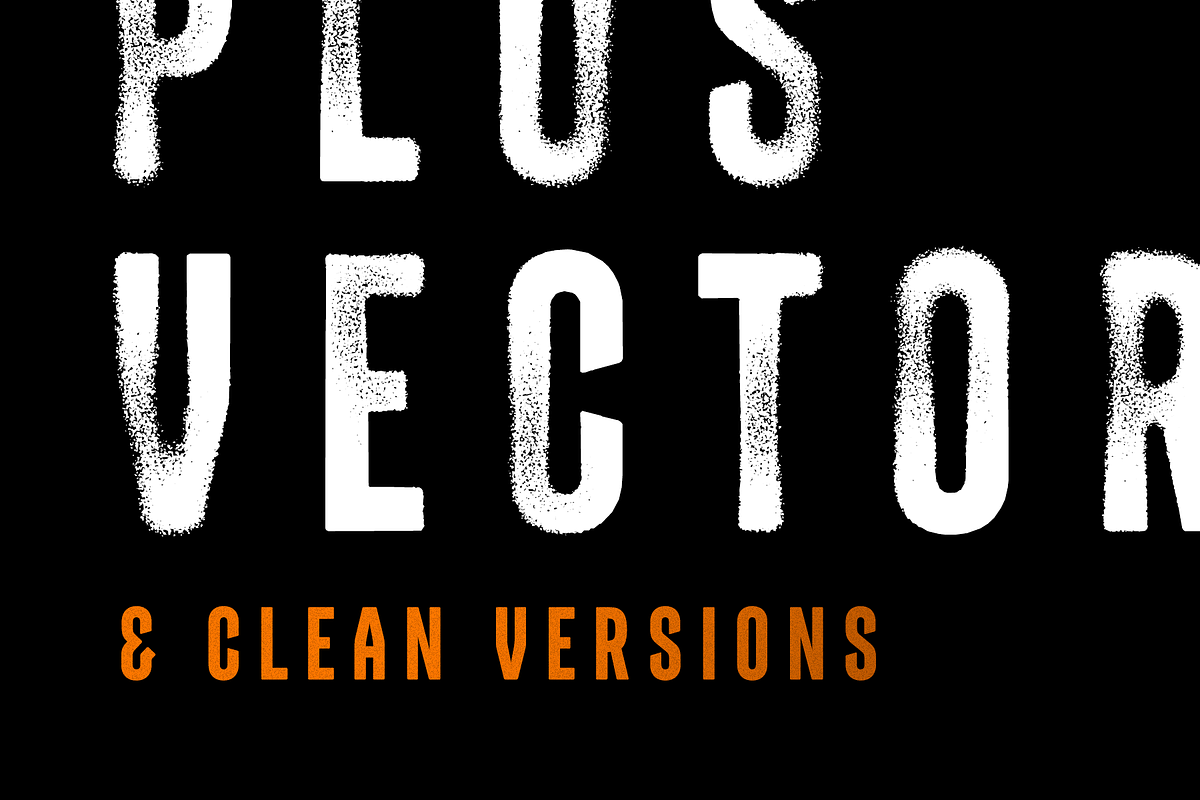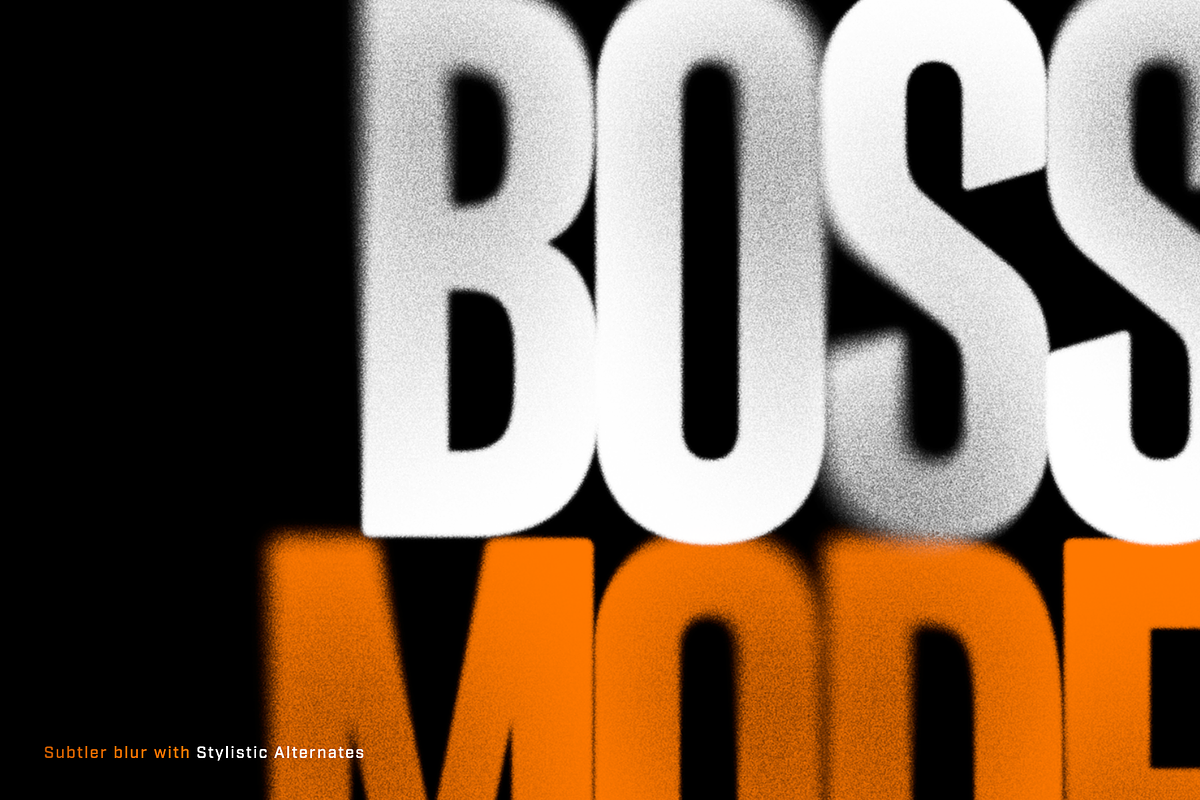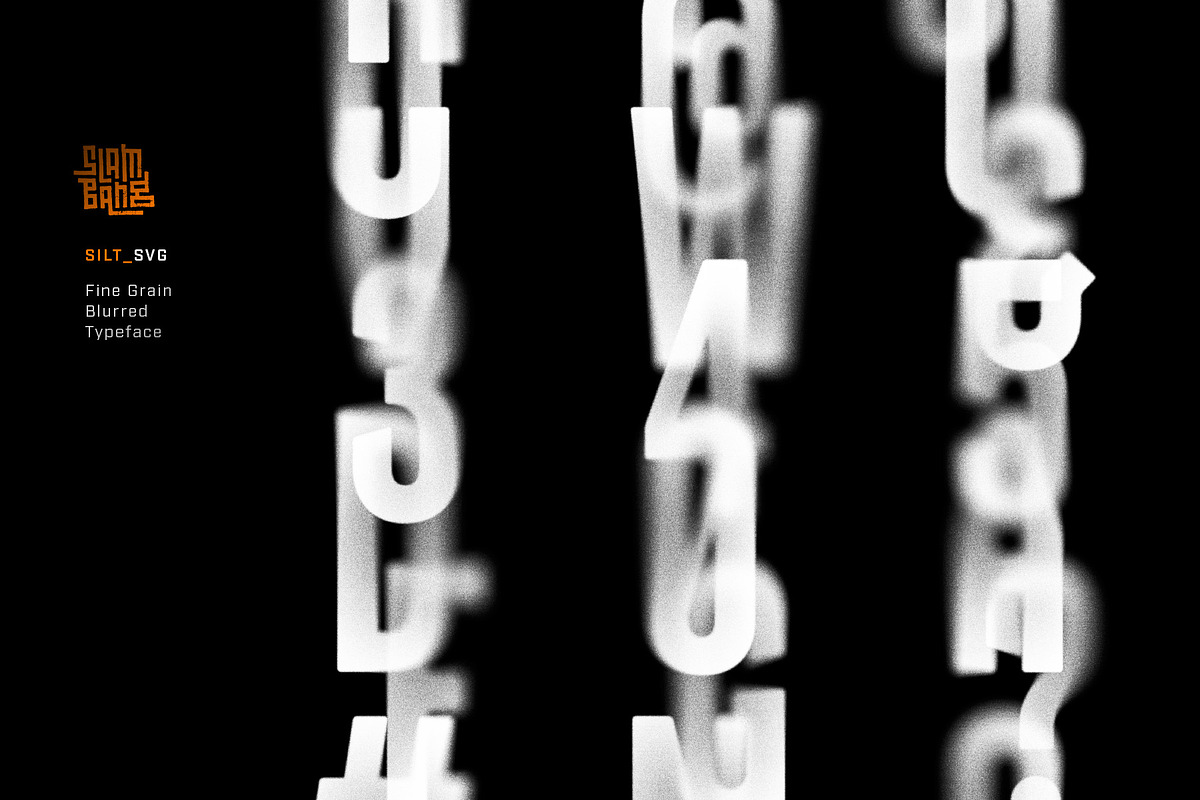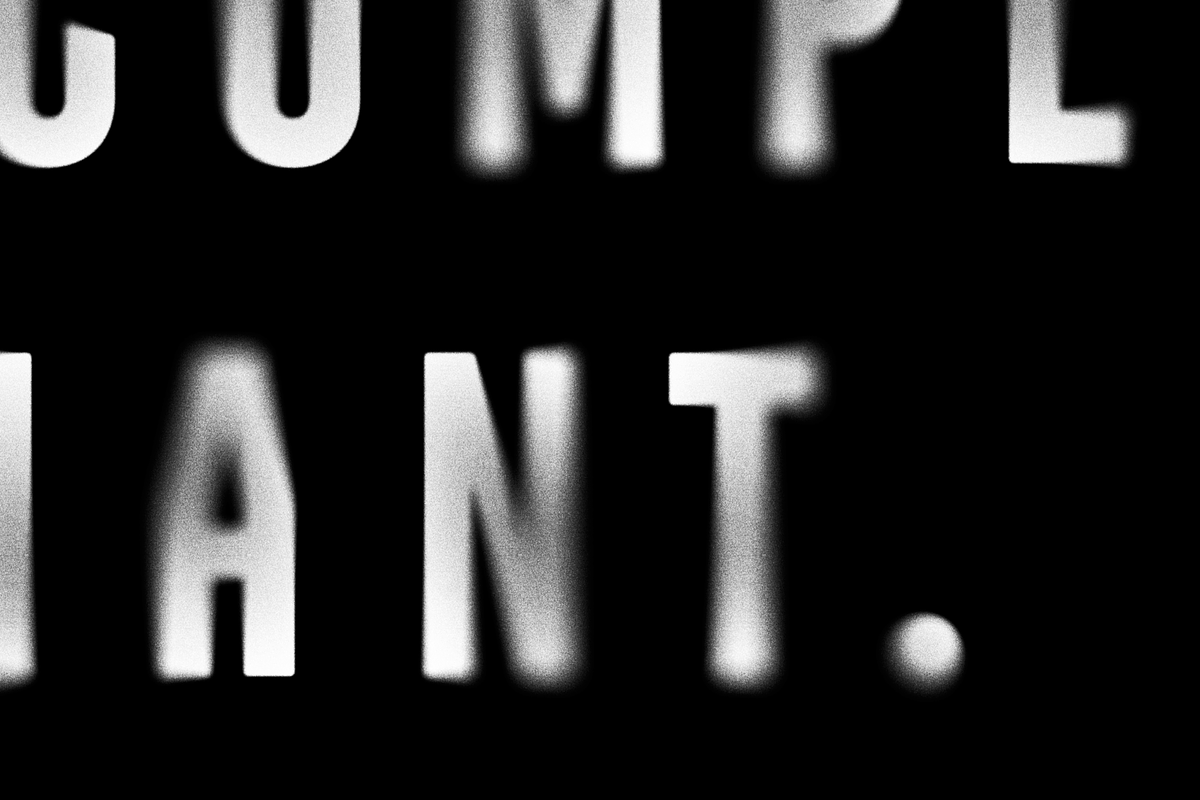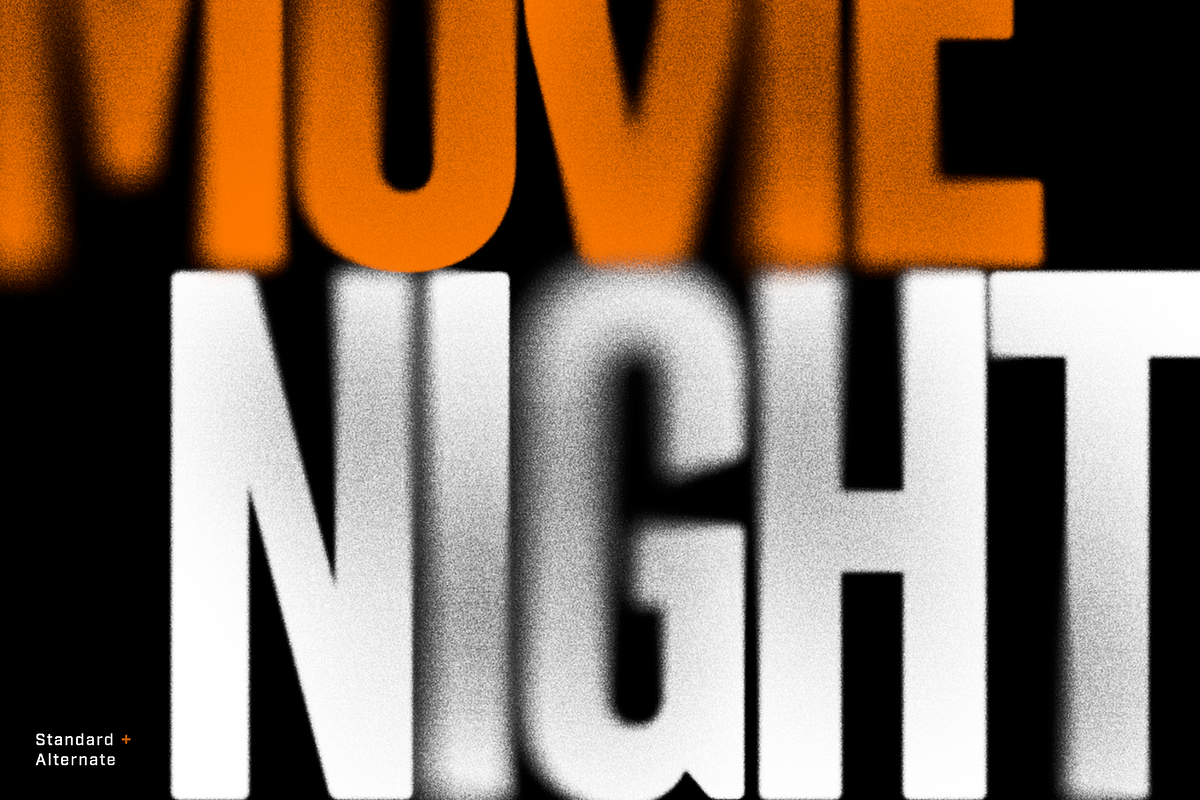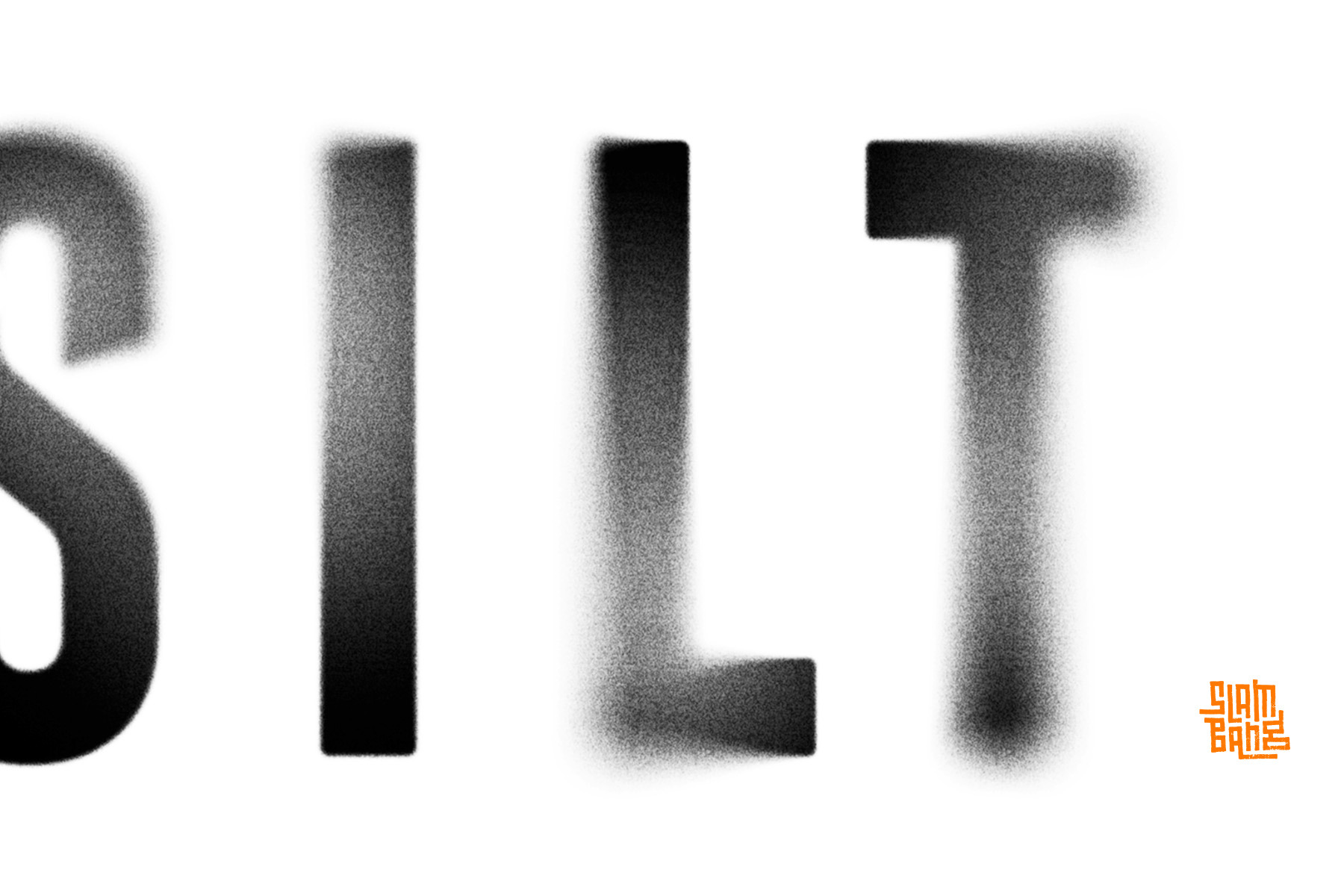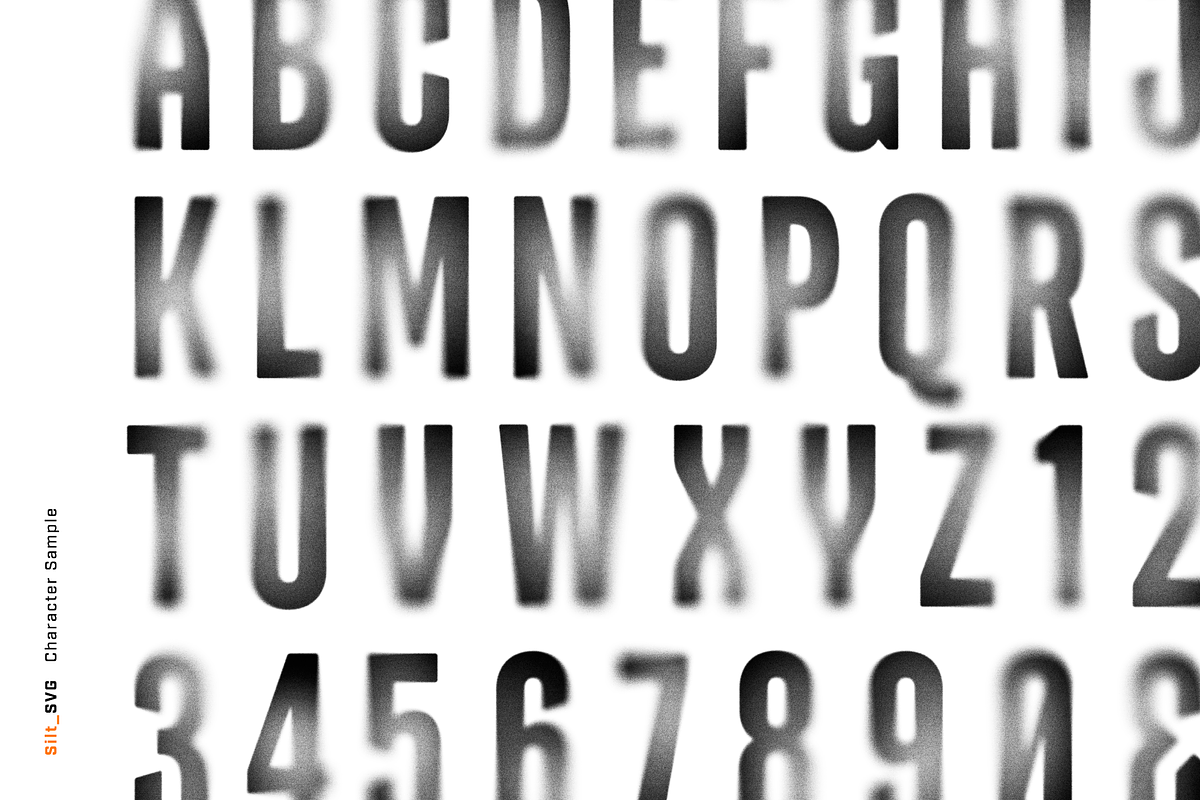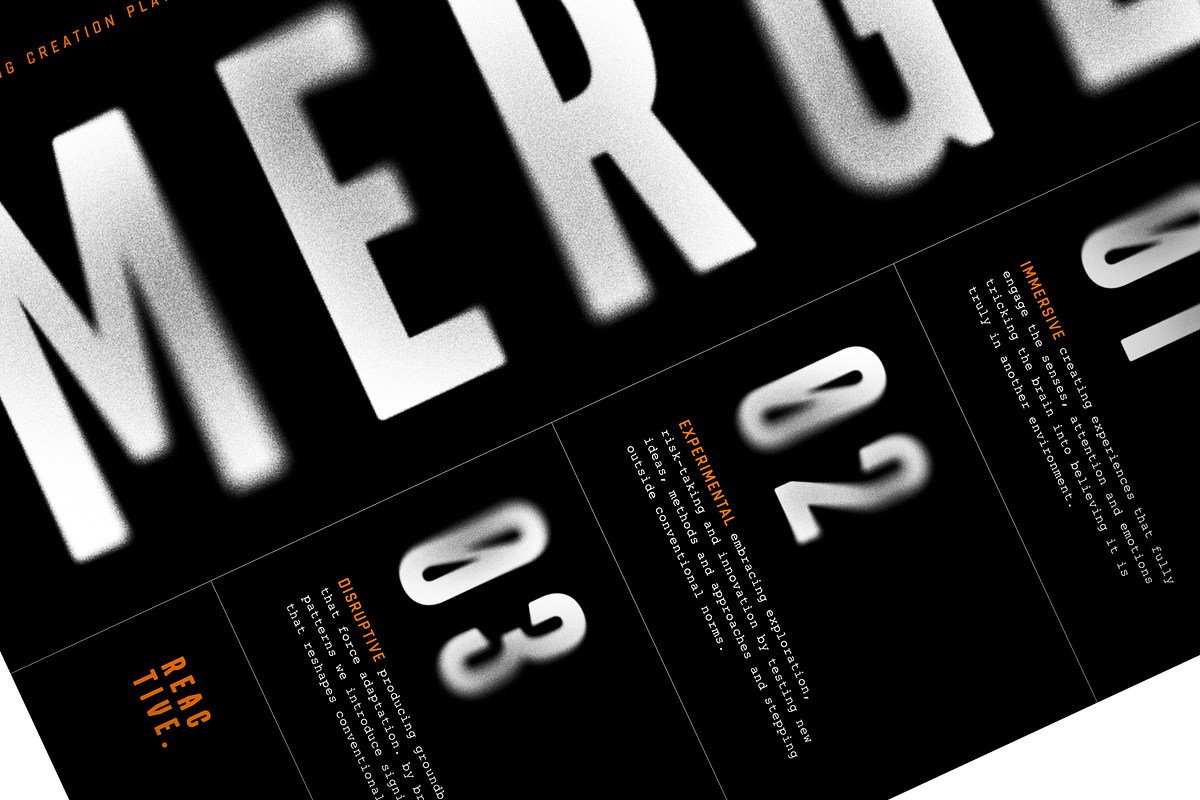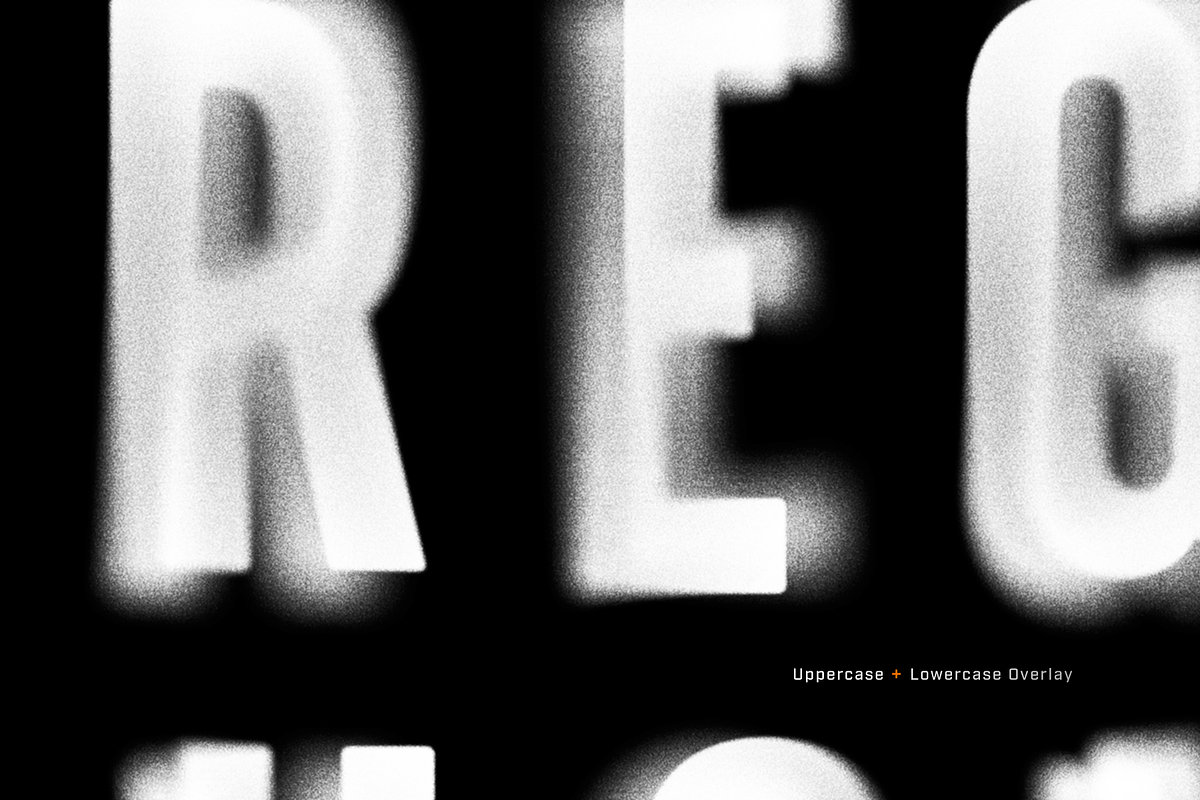
Silt SVG Font Complete Family
Silt is gritty, blurry, super hi-res, and a bit mysterious. With its extreme detail bigger is better…don’t be afraid to use it large!
The set also includes Silt Rough (a traditional OTF likeness), Silt Clean (the untextured version) and Silt for Mac (specifically encoded for Mac and Procreate). Silt SVG and Silt Rough include 4 texture versions for each letter, with the Stylistic Alternates having subtler blurring. The fonts also have a feature that automatically substitutes a texture variant when a letter is typed twice, so duplicate textures right next to each other are avoided.